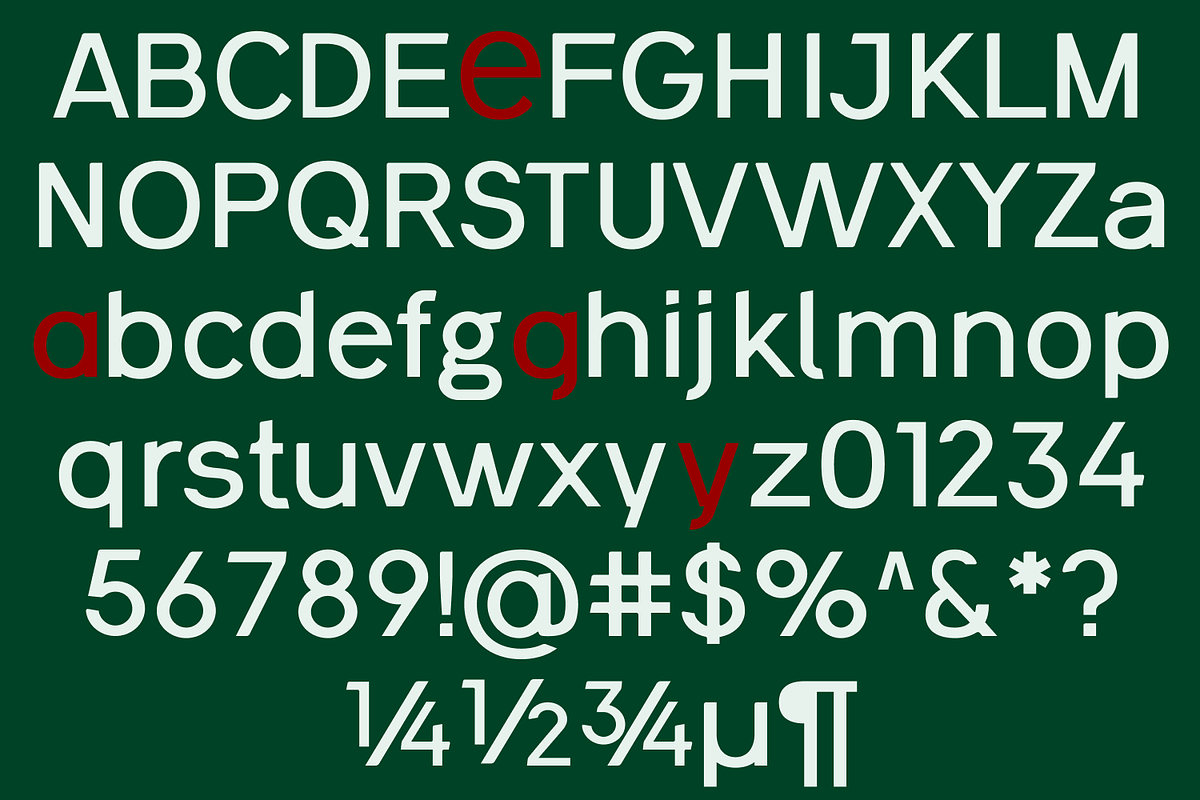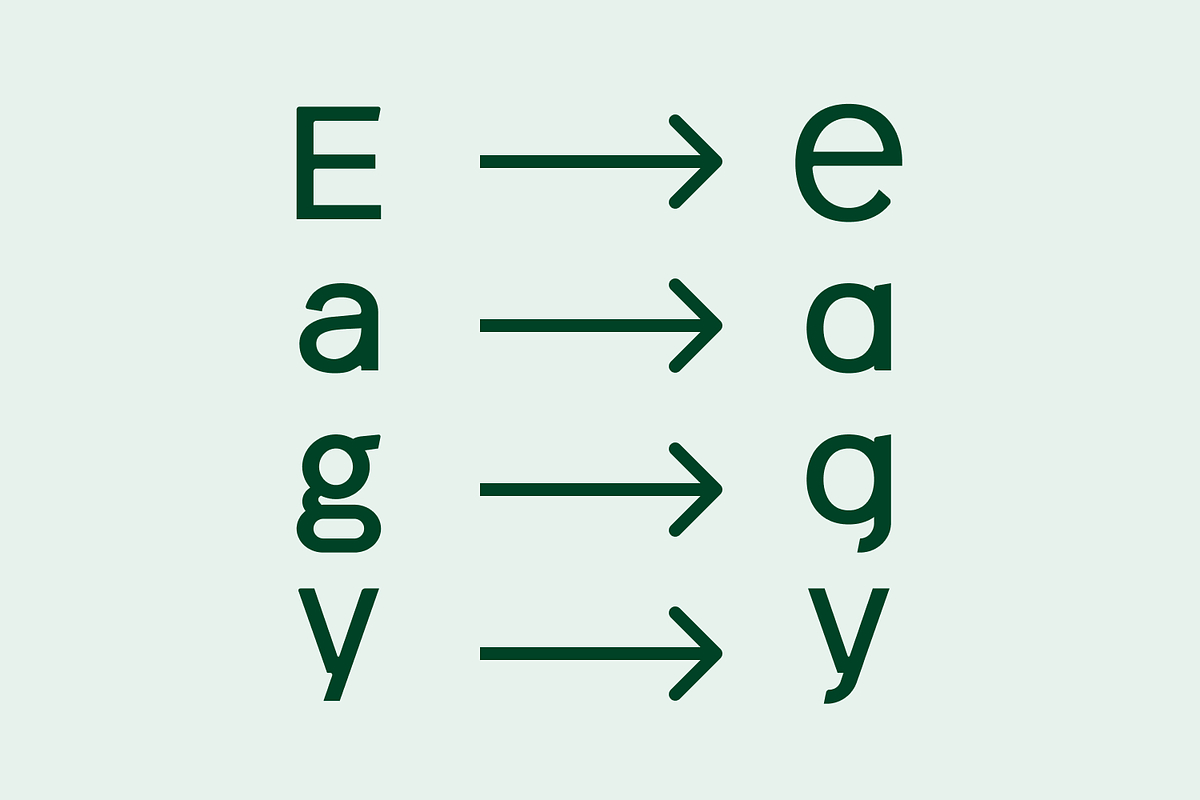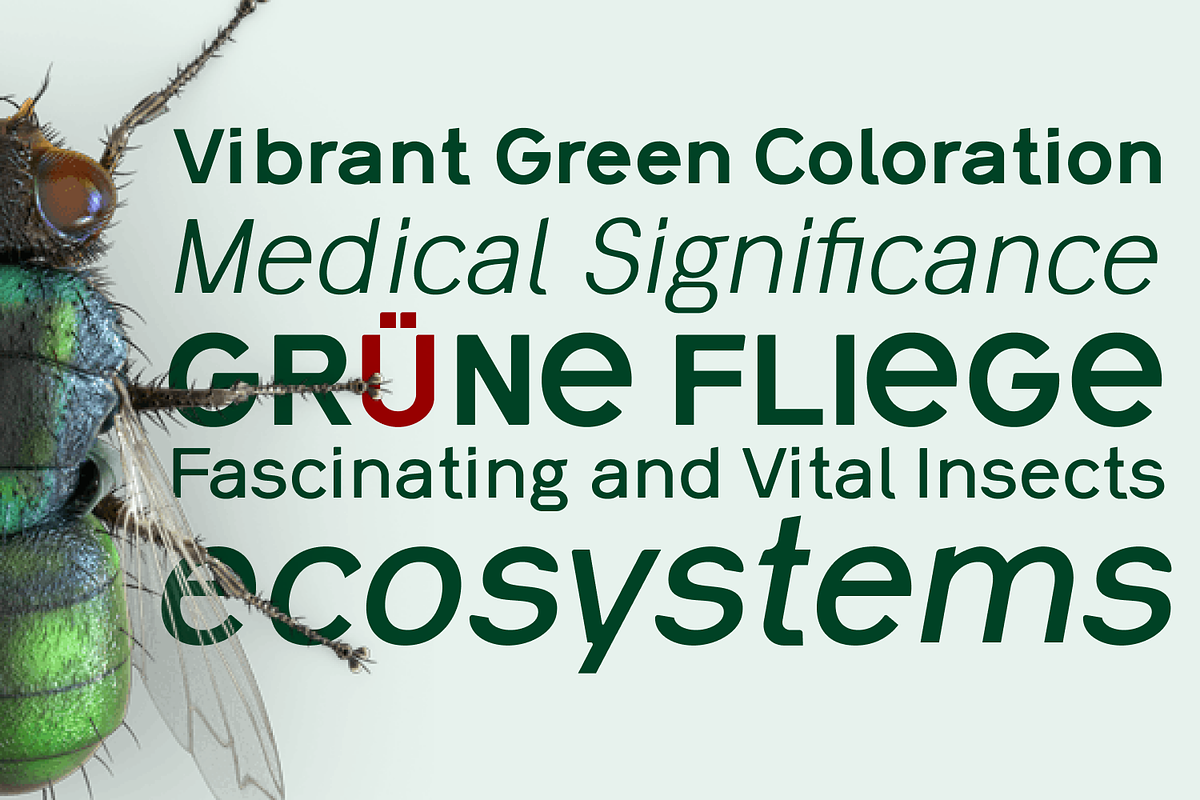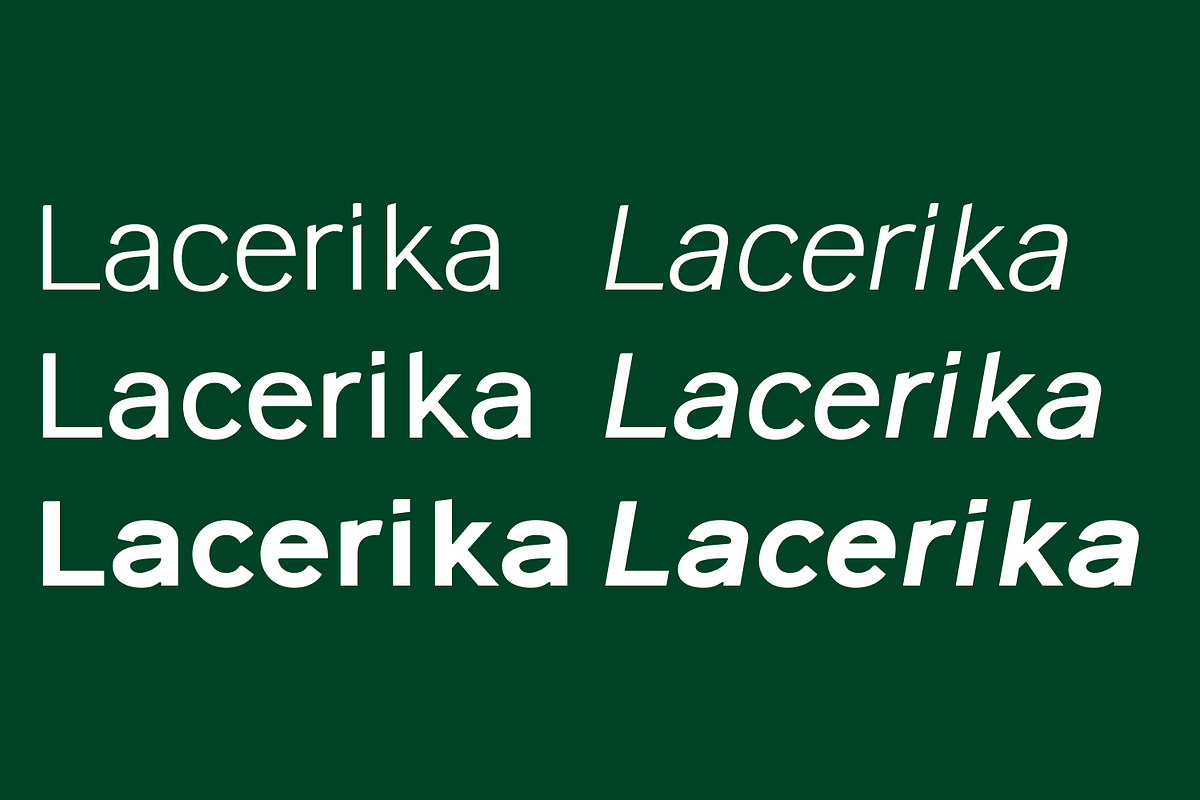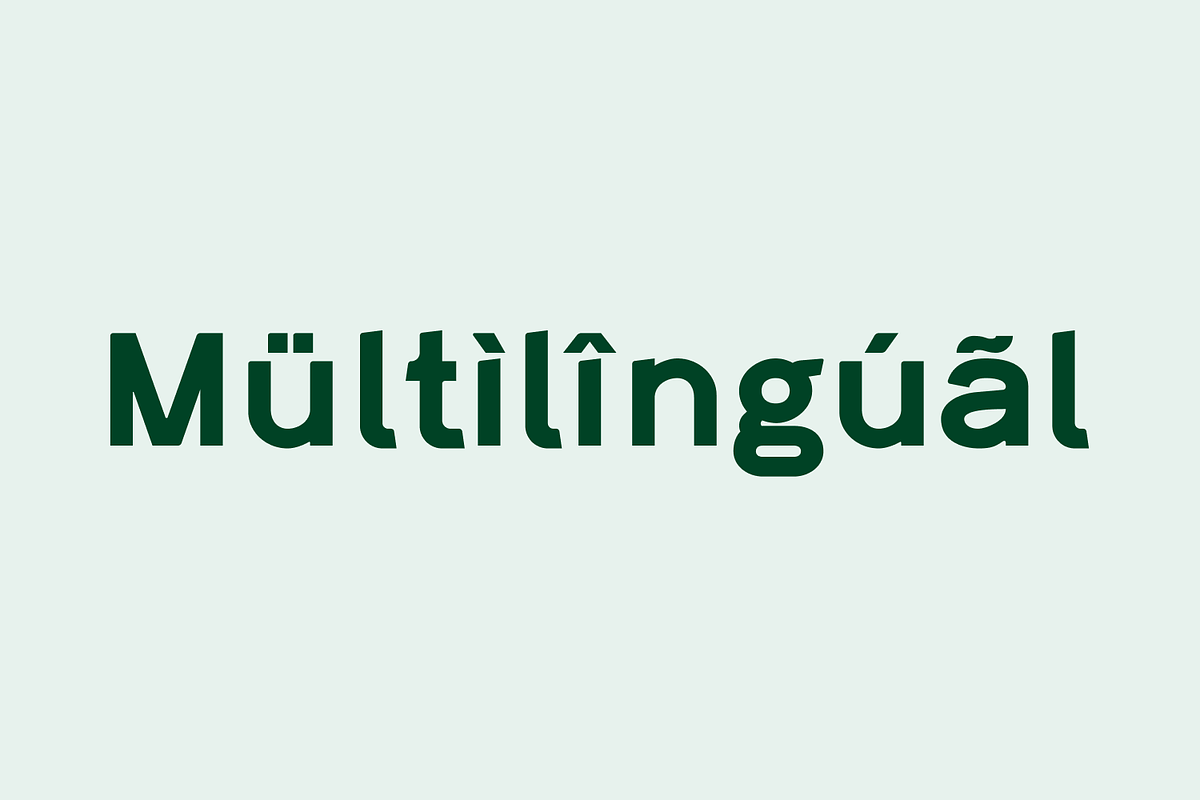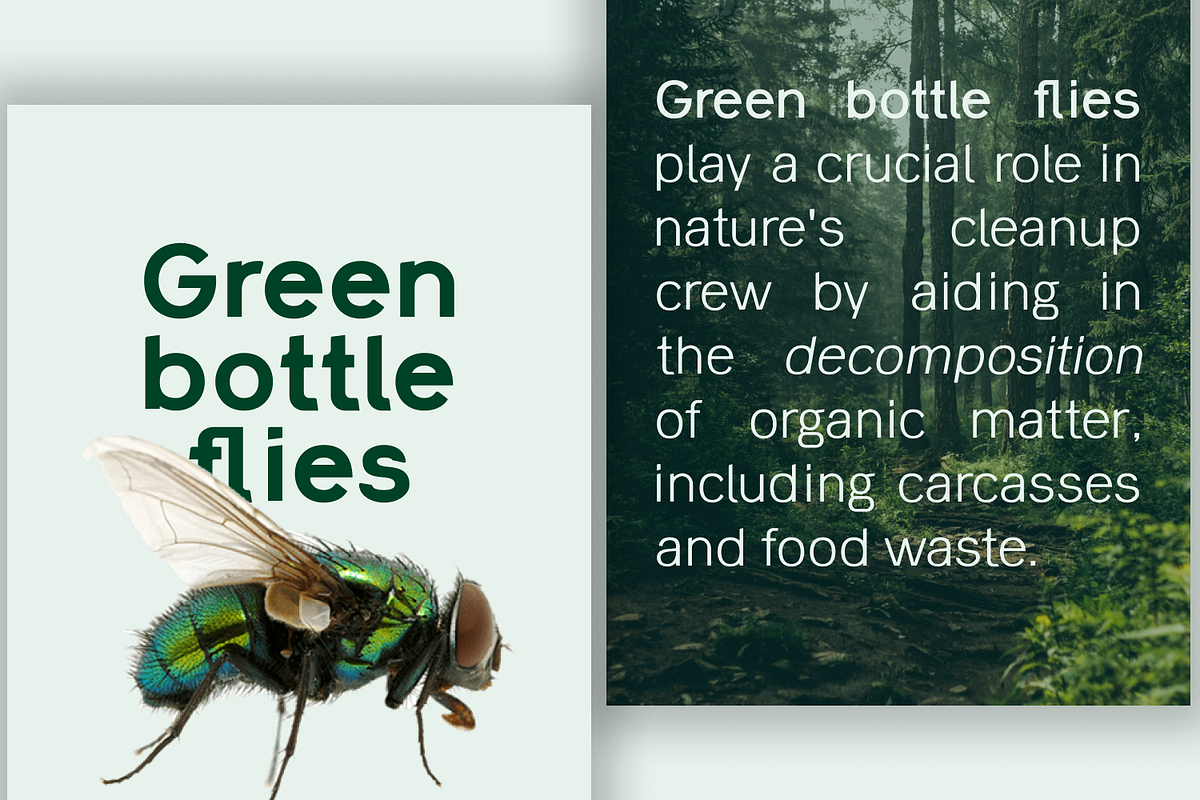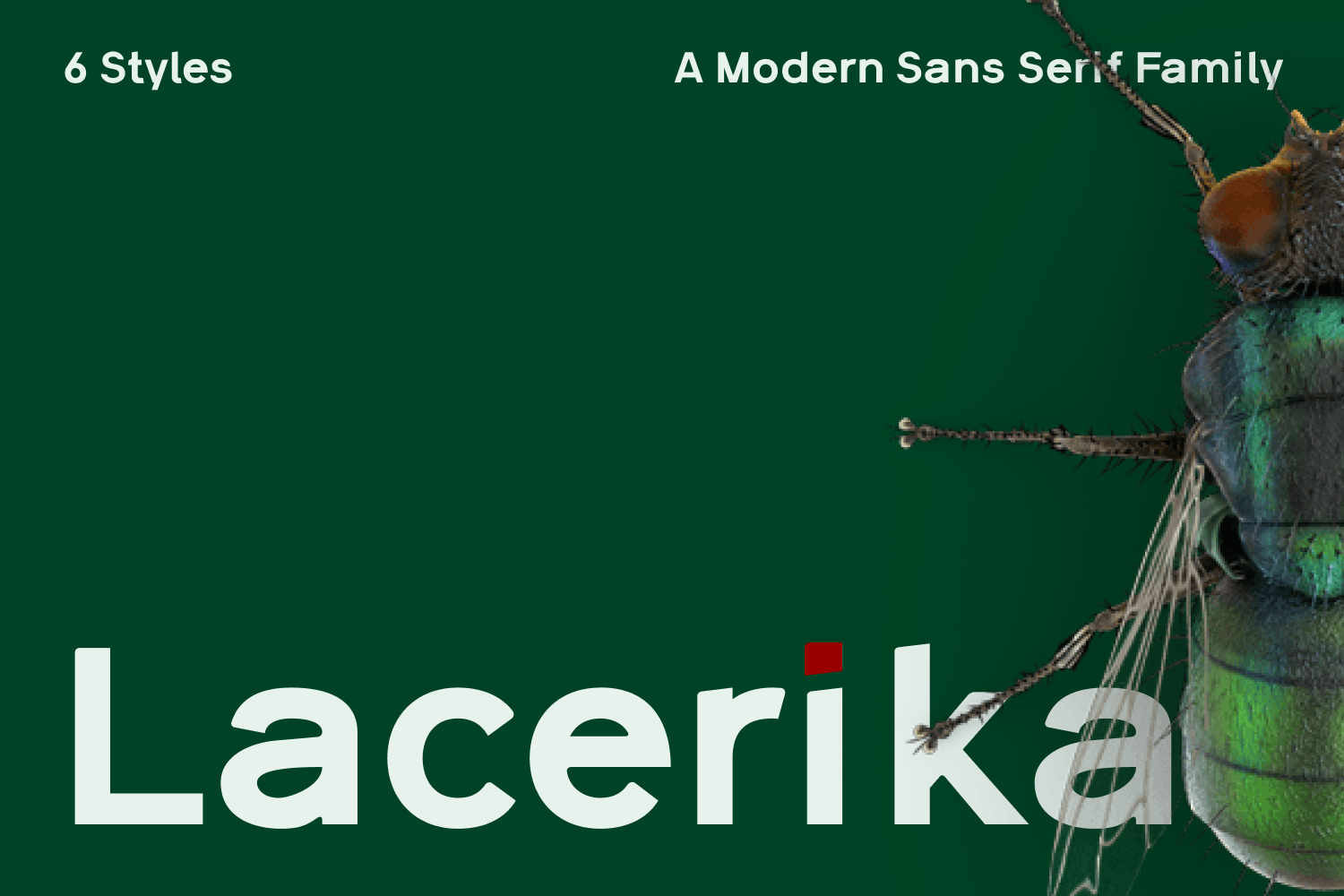
Lacerika Modern Sans Serif Font
Introducing the Lacerika font family, a versatile and sleek sans-serif font designed to elevate your projects to new heights. Whether you’re crafting a stunning website, a captivating app, an eye-catching brochure, or unforgettable branding materials, Lacerika provides the perfect balance of elegance and functionality.
Lacerika stands out with its clean lines and modern aesthetic, making it an ideal choice for a wide range of design needs. Its versatility ensures that it seamlessly integrates into any project, enhancing readability and adding a touch of sophistication. The font family includes multiple weights and styles, allowing for dynamic and flexible design solutions tailored to your specific requirements.
The Lacerika font family is meticulously crafted to deliver exceptional clarity and visual appeal. Its sleek design is perfect for creating polished and professional visuals that resonate with contemporary audiences. From headlines to body text, Lacerika maintains a consistent and harmonious look that enhances the overall impact of your content.
Unlock the potential of your creativity with Lacerika today, and transform your design projects into works of art. Whether you are a web designer, app developer, graphic artist, or branding expert, Lacerika offers the tools you need to create stunning and memorable visuals that leave a lasting impression. Elevate your design game with Lacerika, and let your creativity shine.